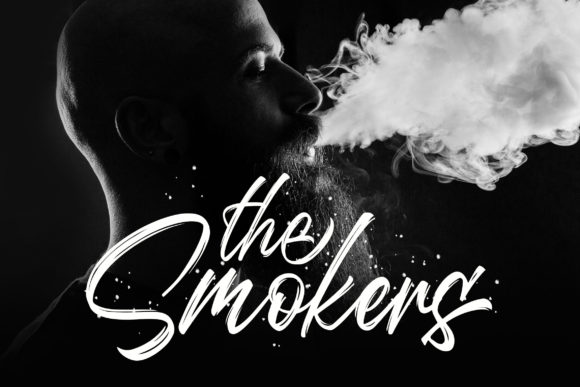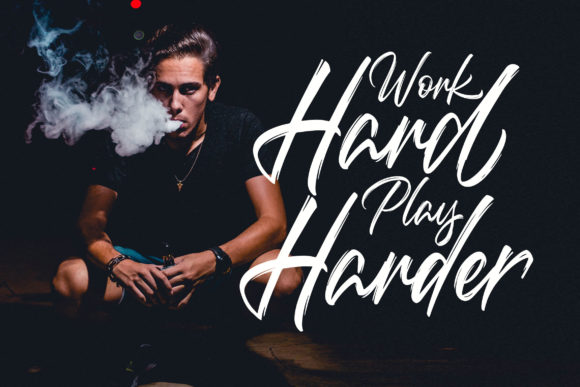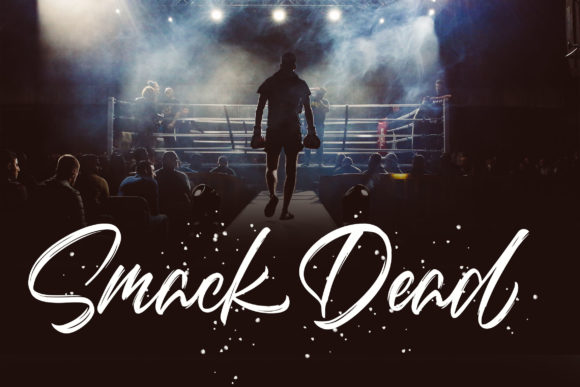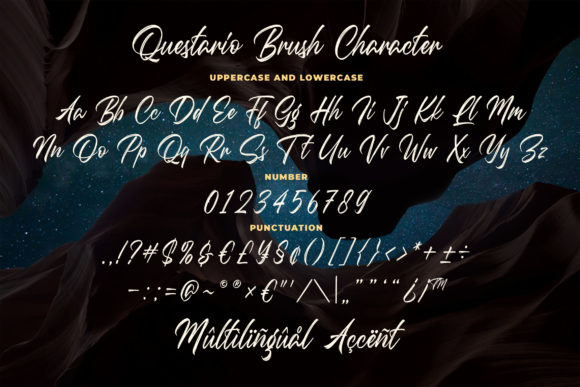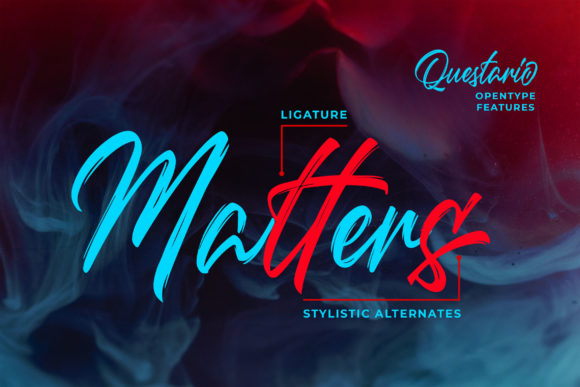
Questario Font
About Questario Font
Questario is a stunning brush script that radiates authenticity and charm. It will make any text feel strong and sincere.